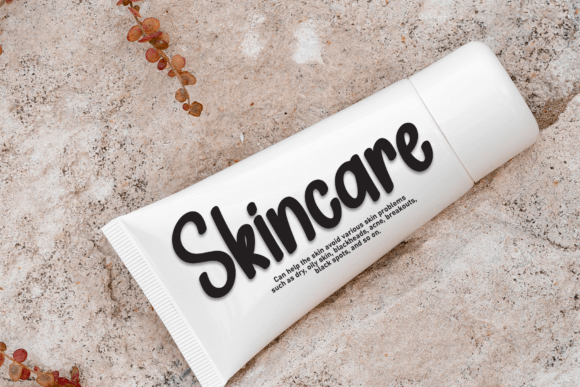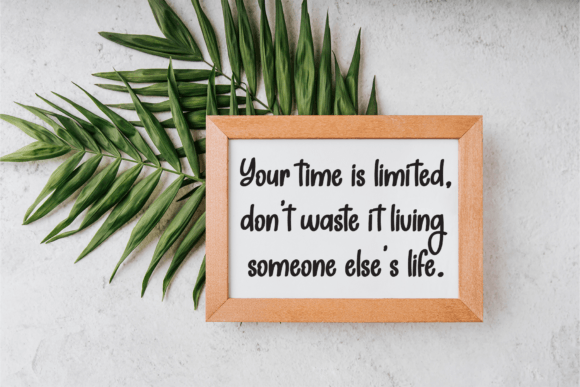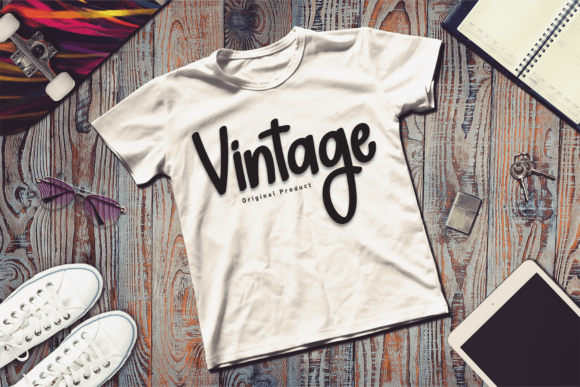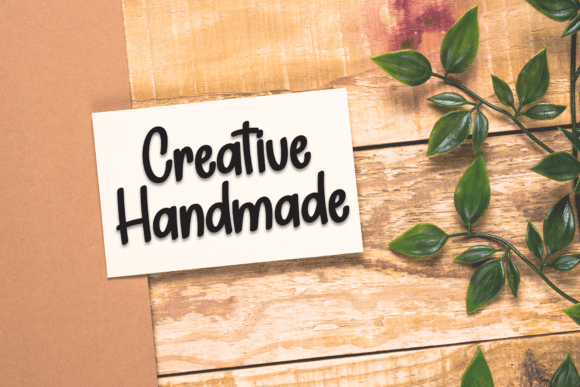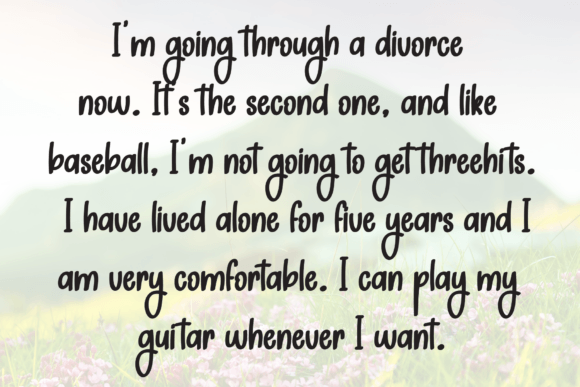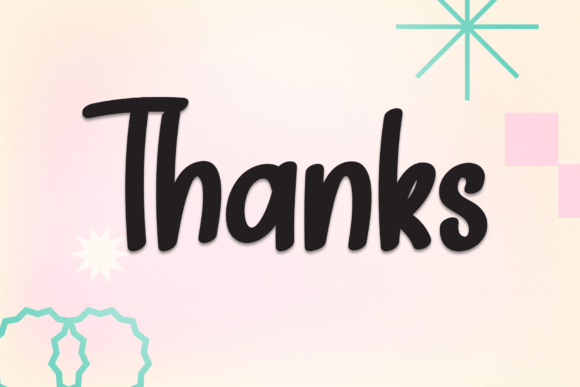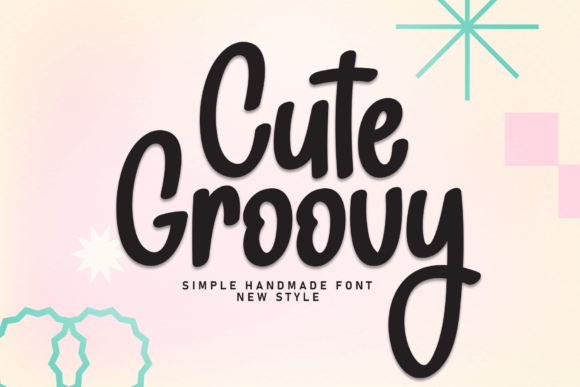
Cute Groovy Font: The Ultimate Guide to Adding a Touch of Whimsy to Your Designs
Are you a designer or crafter looking for a font that can add a dash of personality to your projects? Look no further than Cute Groovy, a sweet and friendly handwritten font that’s perfect for a wide range of designs. In this article, we’ll explore the unique features of Cute Groovy and show you how to make the most of this versatile font.
What is Cute Groovy Font?
Cute Groovy is a beautiful, handwritten font that’s designed to bring a touch of whimsy to your designs. Its natural and unique style makes it incredibly fitting for a large pool of designs, from playful crafts to creative marketing materials. The font’s friendly and approachable vibe is sure to capture the hearts of your audience and leave a lasting impression.
Key Features of Cute Groovy Font
• Handwritten style: Cute Groovy has a genuine, handwritten feel that’s perfect for adding a personal touch to your designs.
• Unique and distinctive: The font’s unique style sets it apart from more traditional fonts, making it ideal for designers who want to create something truly special.
• Natural and effortless: Cute Groovy has a relaxed, effortless vibe that’s perfect for creating designs that feel friendly and approachable.
• Highly versatile: Whether you’re working on a craft project, a marketing campaign, or a personal design, Cute Groovy is the perfect choice.
Uses for Cute Groovy Font
So, what can you use Cute Groovy for? The possibilities are endless! Here are a few ideas to get you started:
• Crafting and DIY projects: Cute Groovy is perfect for crafting and DIY projects, such as handmade cards, gift tags, and scrapbooking.
• Marketing materials: The font’s friendly and approachable vibe makes it ideal for marketing materials, such as brochures, flyers, and social media graphics.
• Personal designs: Whether you’re creating a logo, a poster, or a t-shirt design, Cute Groovy is a great choice.
• Wedding and event planning: The font’s whimsical style makes it perfect for wedding and event planning, such as invitations, programs, and signage.
Tips for Using Cute Groovy Font
Here are a few tips for getting the most out of Cute Groovy:
• Keep it simple: Cute Groovy is a statement font, so keep your design simple and let the font do the talking.
• Experiment with colors: The font looks great in a range of colors, so don’t be afraid to experiment and find the perfect hue for your design.
• Mix and match: Cute Groovy pairs well with other fonts, so try mixing and matching to create a unique look.
• Have fun: The most important thing is to have fun and be creative with Cute Groovy!
Cute Groovy is a sweet and friendly handwritten font that’s perfect for designers and crafters who want to add a touch of whimsy to their projects. Its natural and unique style makes it incredibly versatile, and its friendly and approachable vibe is sure to capture the hearts of your audience. Whether you’re working on a craft project, a marketing campaign, or a personal design, Cute Groovy is the perfect choice. So why not give it a try and see what amazing designs you can create?
The only limit is your imagination, so let Cute Groovy inspire you to create something truly special!